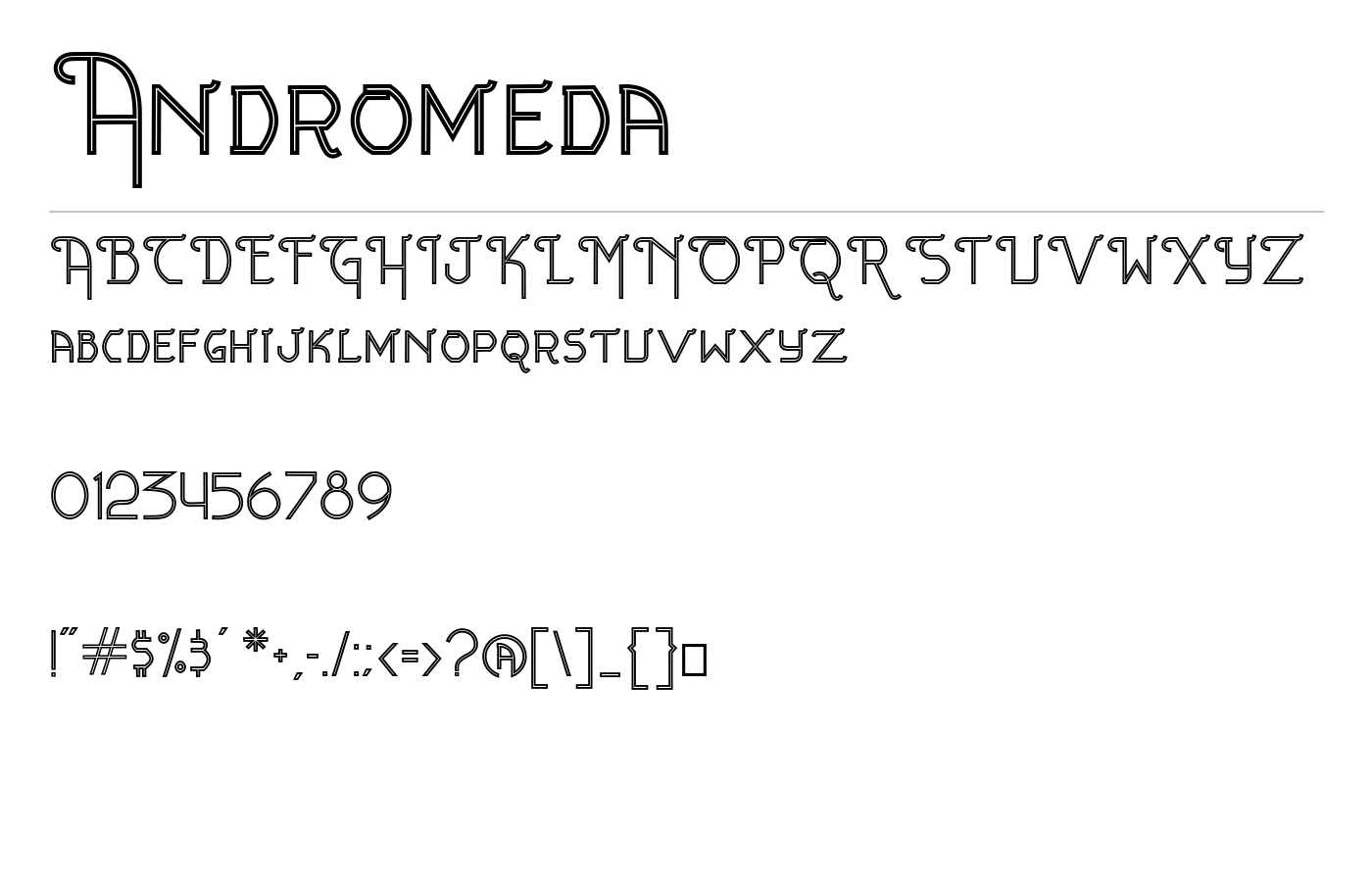
Andromeda is a decorative serif font with an art deco vibe, featuring elegant, narrow letterforms with thin, geometric strokes and stylish, curved serifs. Its distinct, slightly condensed shapes and unique letter details create a modern yet vintage feel, ideal for luxury branding, posters, and editorial headlines where a sophisticated and eye-catching design is desired. This font works well in display settings, bringing a touch of class and personality to creative projects.
Andromeda Font